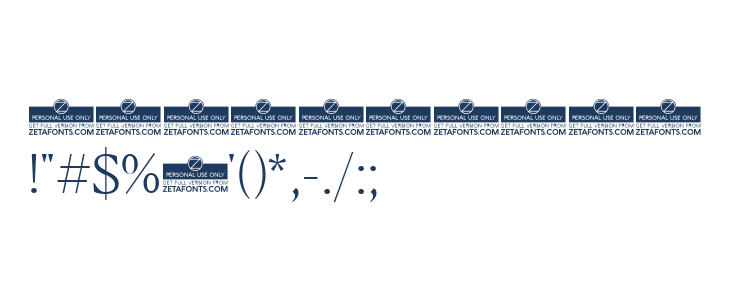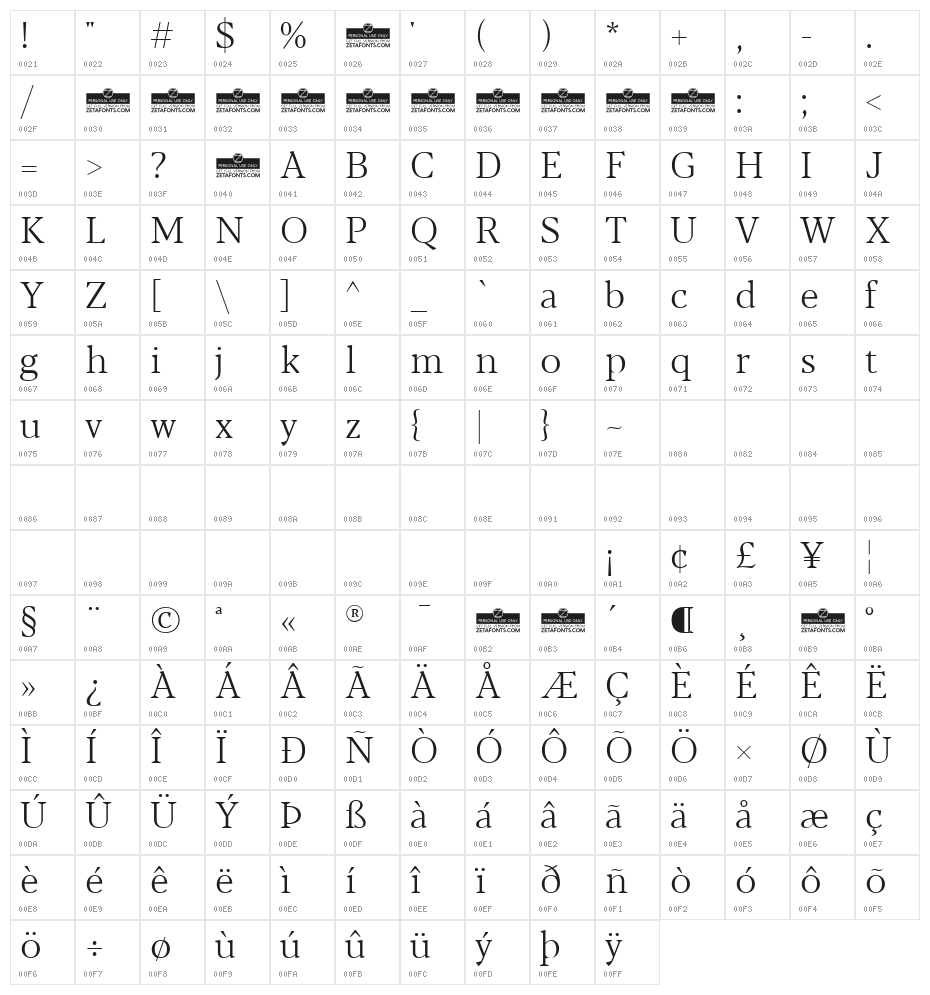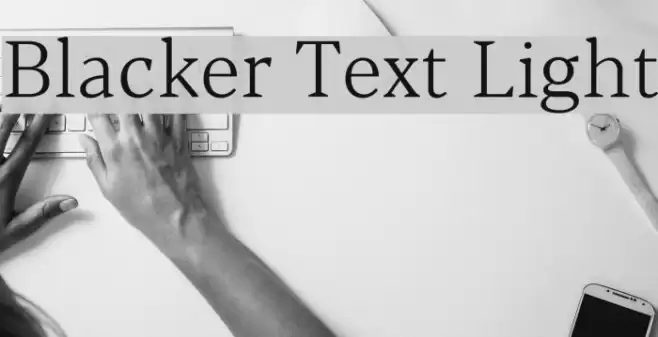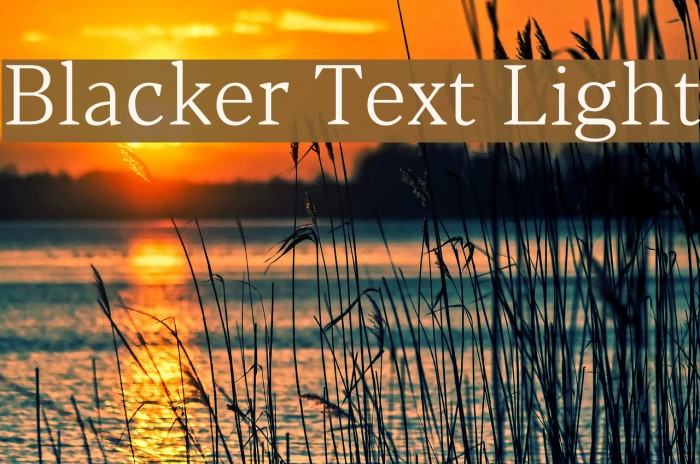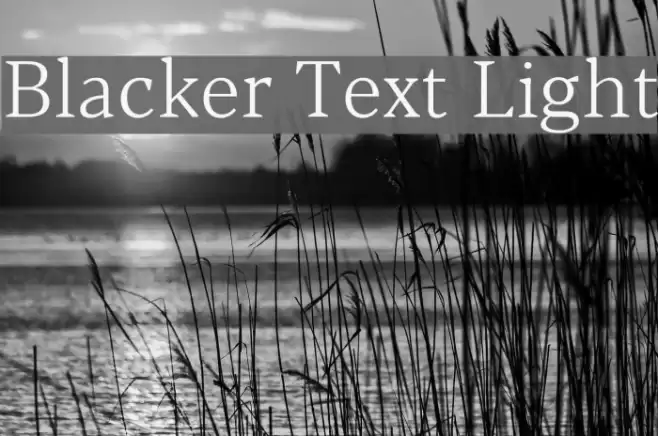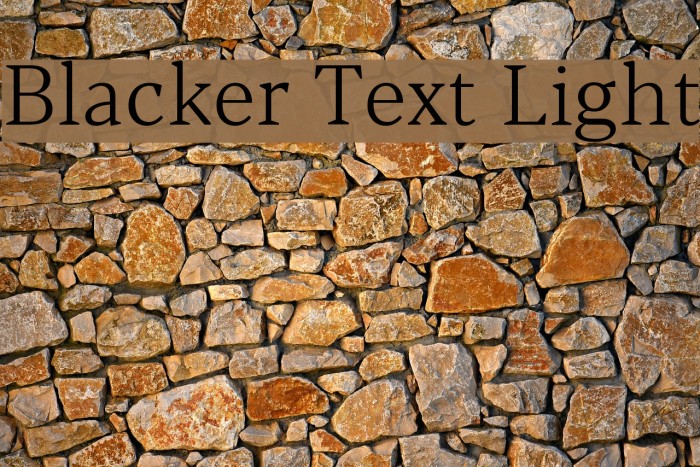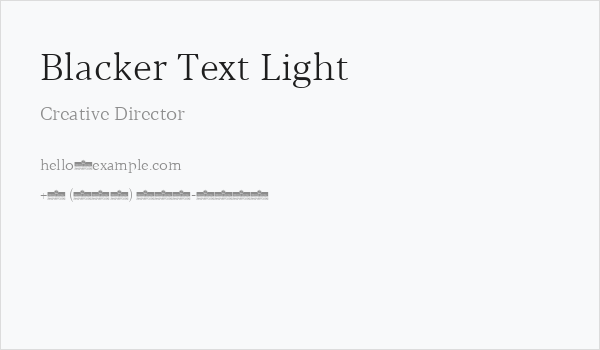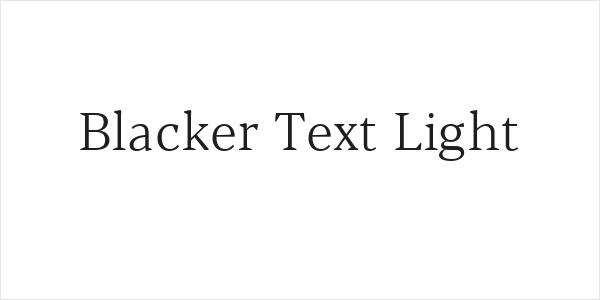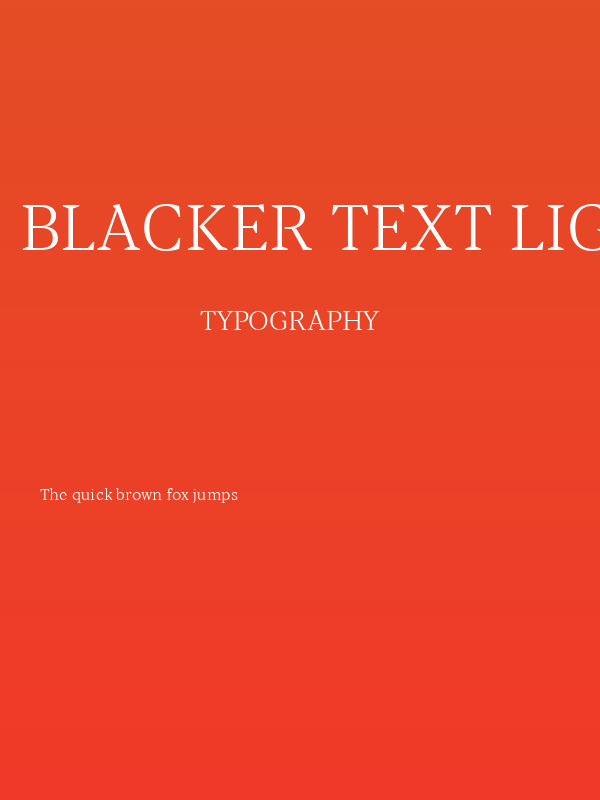
Blacker Text Light Font
Blacker Text Light Description
This font features a refined and elegant serif style, characterized by its light weight and classic proportions. The uppercase letters exhibit a traditional serif design with clean lines and balanced spacing, while the lowercase letters maintain a harmonious flow with subtle curves. The numerals are clear and legible, making them suitable for various applications. Special characters are thoughtfully designed, ensuring consistency across the typeface. The overall aesthetic is sophisticated and timeless, making it ideal for projects that require a touch of elegance.
| Proposed Projects | Ideal for editorial design, book covers, formal invitations, and branding that requires a sophisticated touch. |